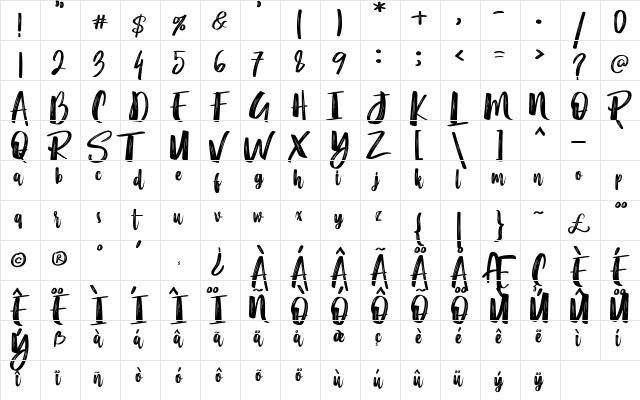
Merci Heart Brush Regular
| Foundry | Debut Studio |
| Designer | Debut Studio |
Design Context for Merci Heart Brush Typeface
Merci Heart Brush brings a calligraphic fluidity to the page — its connecting strokes and expressive curves give it an unmistakably human quality.
Font Pairing: Combine Merci Heart Brush with a simple geometric sans for maximum contrast — the tension between flowing curves and clean structure is a classic typographic pairing.
Pro Tip: Use Merci Heart Brush for short runs of text — names, titles, or taglines. Extended body copy in script faces tires the eye quickly.